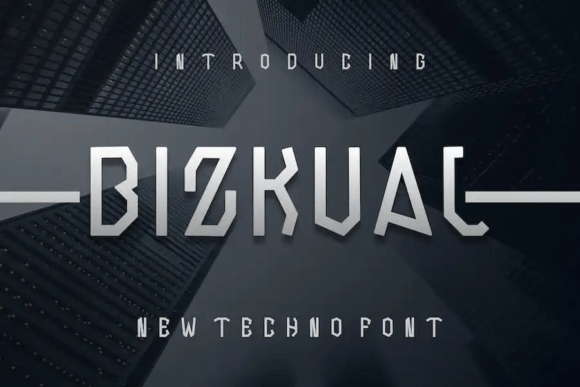
**Introducing Bizkual: The Ultimate Display Font for Captivating Designs**
Journey into the world of typography where every stroke tells a story, and each font holds the power to evoke emotions and inspire action. Among the vast array of fonts that adorn our digital landscapes, Bizkual emerges as a true masterpiece, a display font that redefines the boundaries of creativity.
Crafted with meticulous attention to detail by the renowned artist artbernadif, Bizkual embodies the essence of modern typography. Its all-caps design exudes a bold and confident presence, while its carefully balanced strokes create a visual harmony that is both pleasing to the eye and captivating to the mind.
Whether you're a seasoned designer seeking to elevate your projects or an aspiring artist eager to make a mark in the world of digital art, Bizkual is the perfect font to ignite your imagination and unleash your creative potential.
**Unleash the Power of Versatility: Bizkual for Every Occasion**
The beauty of Bizkual lies in its remarkable versatility. This extraordinary font transcends the confines of a single purpose, adapting effortlessly to a myriad of design endeavors. Let your creativity soar as you employ Bizkual to:
- **Craft Captivating Logos:** Design logos that command attention and leave a lasting impression on your audience. Bizkual's bold presence and legible form make it the ideal choice for creating logos that stand out from the crowd.
- **Enhance Digital Designs:** Transform your digital designs into masterpieces of visual communication. Bizkual's clean lines and elegant curves lend an air of sophistication to websites, social media graphics, and presentations.
- **Create Unforgettable Greeting Cards:** Infuse your heartfelt messages with a touch of elegance and individuality. Bizkual's unique character adds a personal touch to greeting cards, making them cherished keepsakes.
**Experience the Allure of Bizkual: A Font of Unrivaled Appeal**
Immerse yourself in the enchanting world of Bizkual, where typography takes on a life of its own. This exceptional font captivates with its:
- **Modern Aesthetics:** Embrace the cutting-edge style of Bizkual, a font that embodies the latest trends in typography. Its contemporary design will elevate your projects to new heights of sophistication.
- **Emotional Impact:** Allow Bizkual's expressive strokes to evoke a range of emotions in your audience. From excitement to intrigue, this font has the power to connect with viewers on a deeply personal level.
- **Unforgettable Appeal:** Create designs that linger in the minds of your audience long after they've encountered them. Bizkual's distinctive character leaves an indelible mark, ensuring that your creations will be remembered and cherished.
**Embrace the Bizkual Revolution: Transform Your Designs Today**
Join the growing community of designers and artists who have discovered the transformative power of Bizkual. Let this remarkable font ignite your creativity, empower your designs, and leave an unforgettable impression on the world.